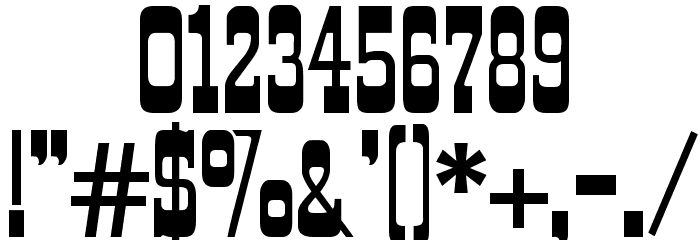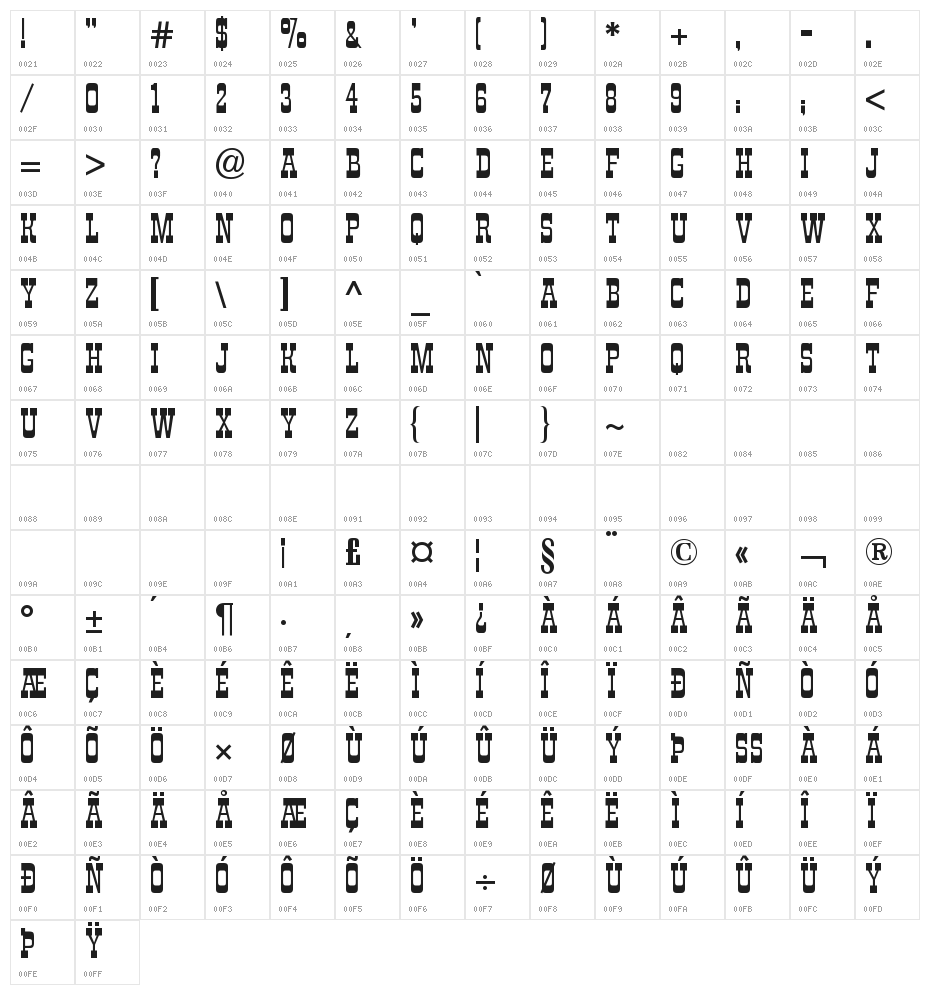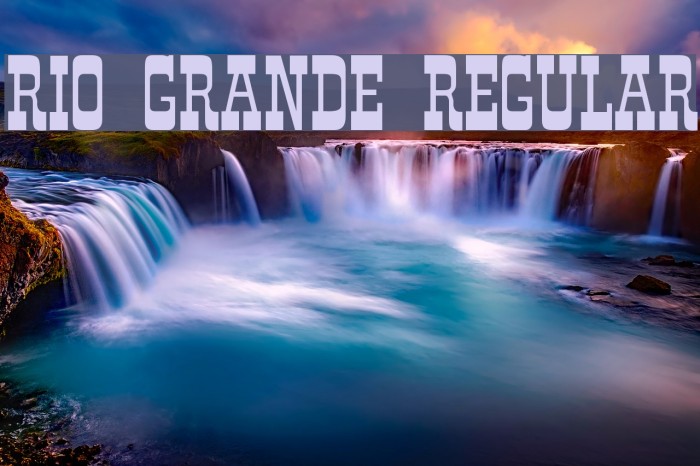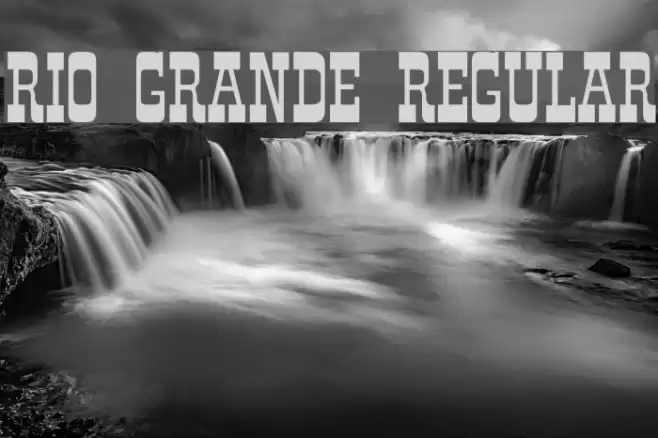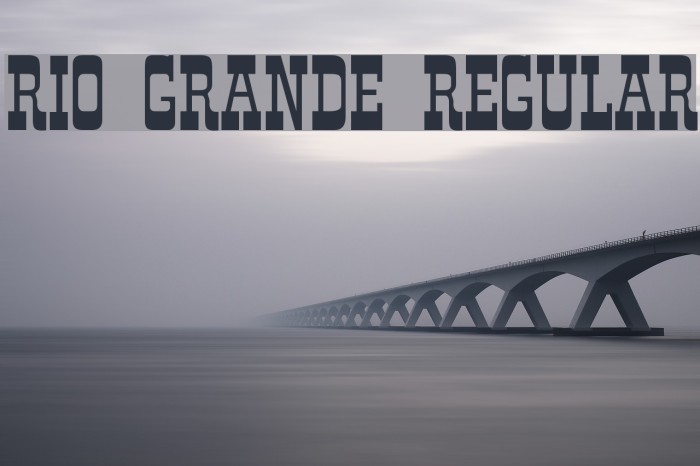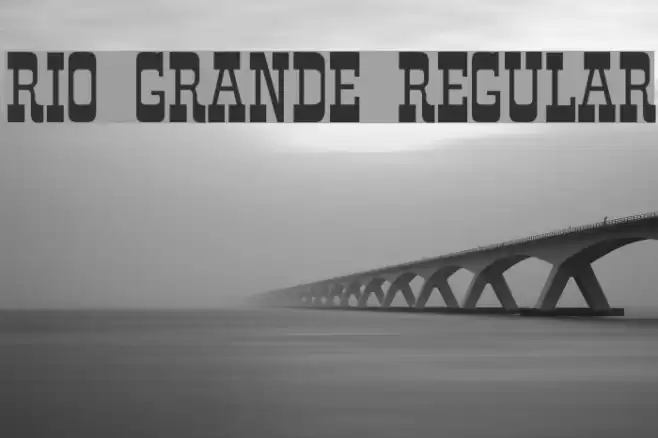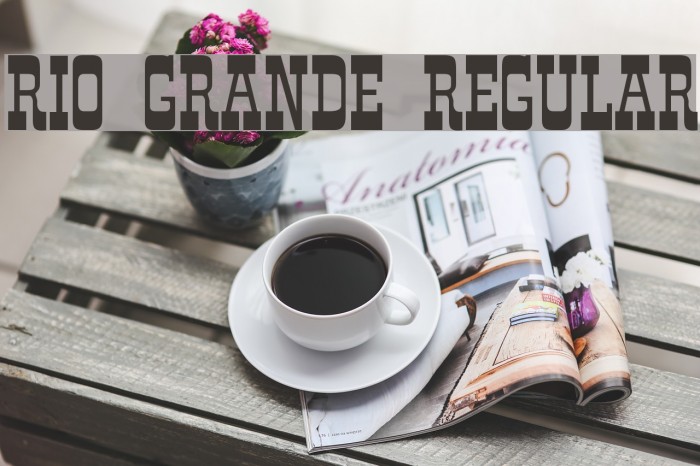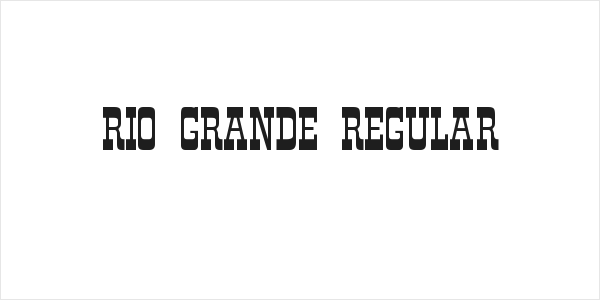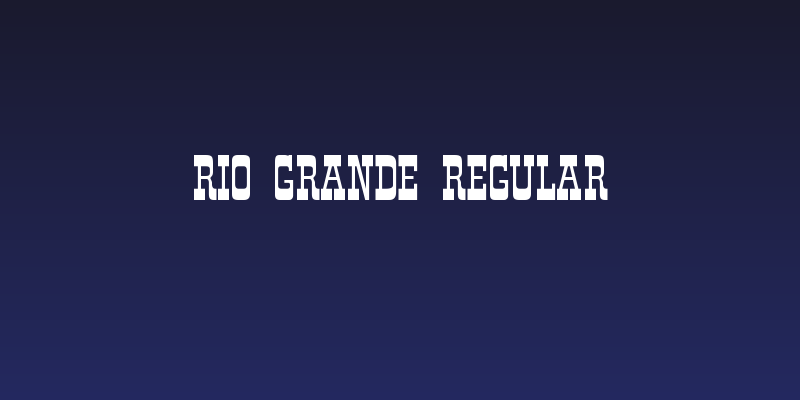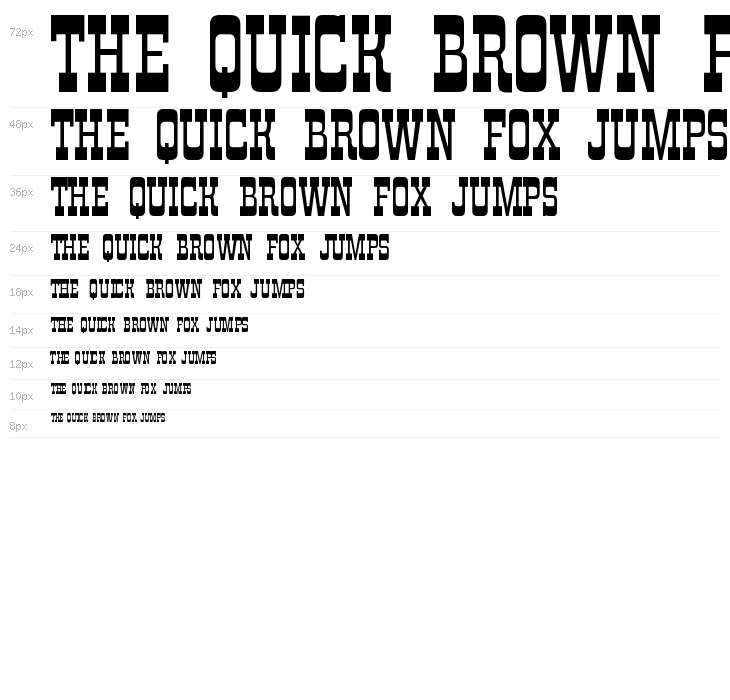
Rio Grande Regular Font
Rio Grande Regular Description
This font features a bold and impactful design with strong, thick strokes and a slab serif style. The characters are uniformly wide, giving a sense of stability and strength. The uppercase letters are particularly prominent, with a square-like appearance that enhances their boldness. The lowercase letters maintain the same robust style, ensuring consistency throughout the typeface. Numbers and special characters are equally bold, making them stand out effectively. The overall design is reminiscent of vintage Western typography, often seen in old posters and signage.
| Proposed Projects | Ideal for use in posters, signage, branding projects, and any design requiring a strong, vintage aesthetic. |